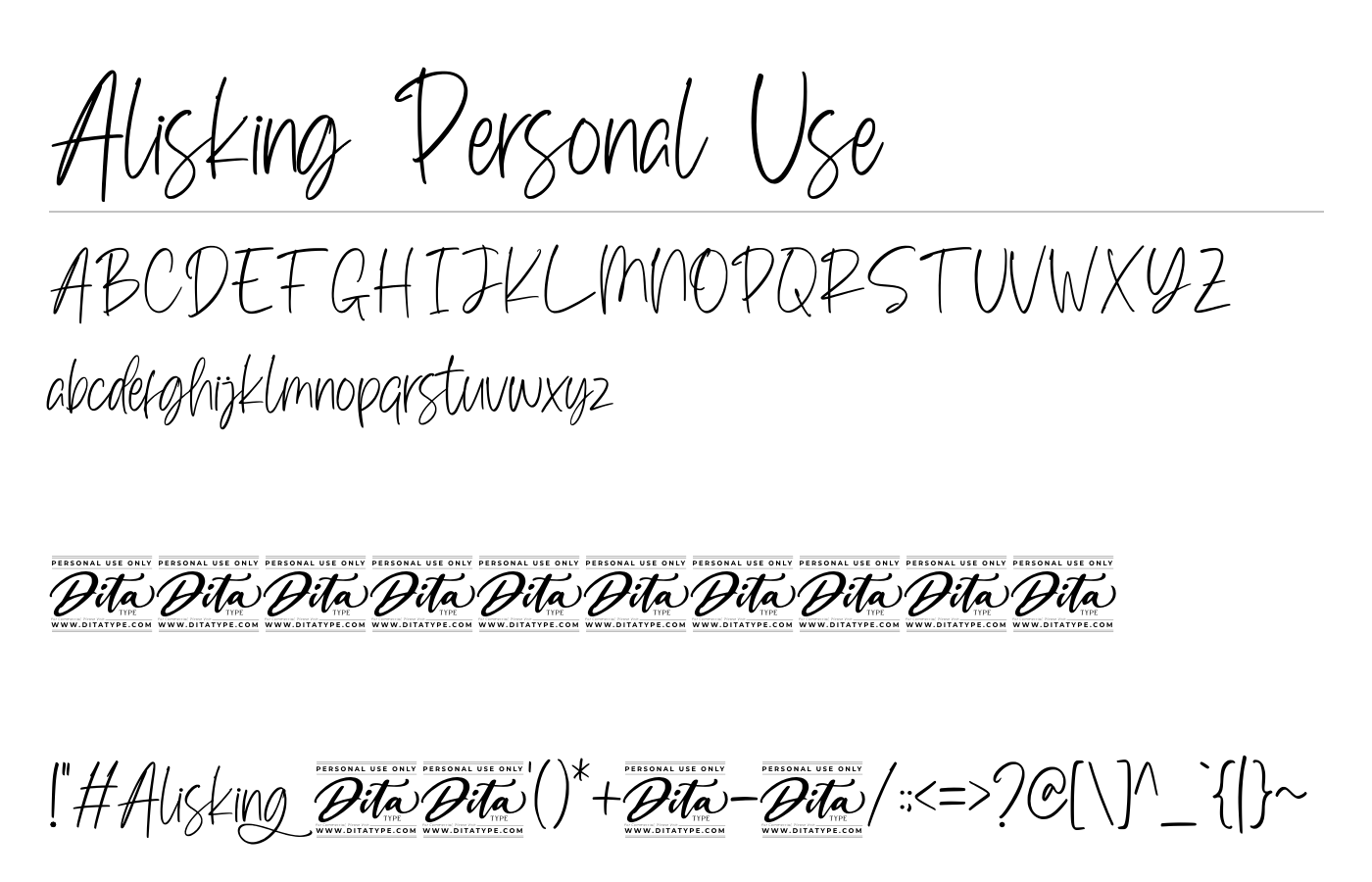
Alisking Personal Use is a light, handwritten script font with a casual and airy feel, characterized by tall, slender letterforms and smooth, flowing strokes. Its playful yet elegant style suits creative projects like personal branding, invitations, and social media content where a friendly and approachable tone is desired. This font works well for headlines and decorative text, adding a personal touch without overpowering the design.
Alisking Personal Use Font
About Alisking Personal Use Font